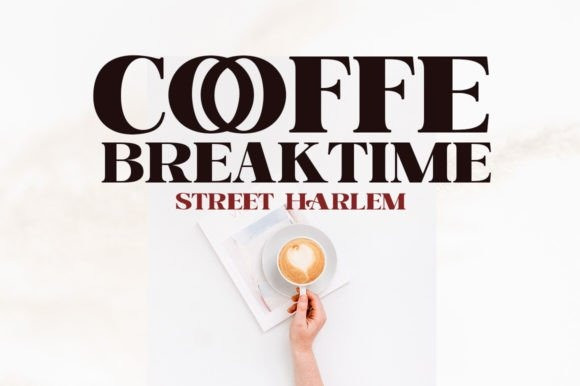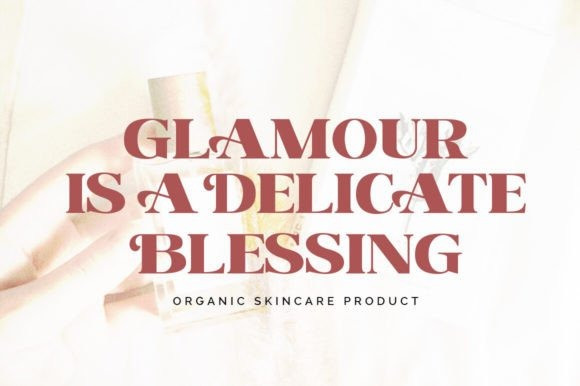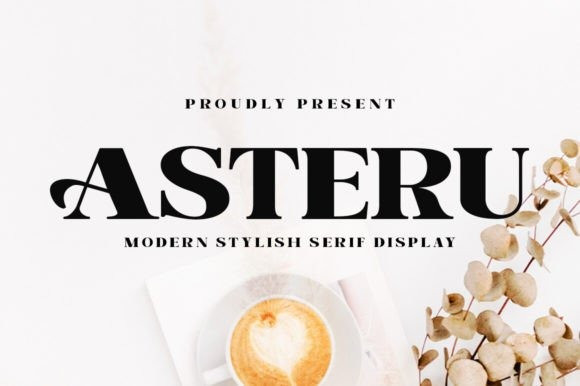
Asteru Font
Asteru Font is a beautiful and elegant serif font that is suitable for branding, wedding invitations, greeting cards, posters, name cards, quotes, blog headers, logos, fashion, apparel, letter stationery and other projects.